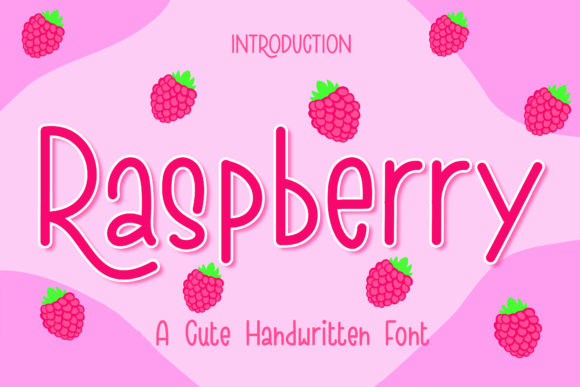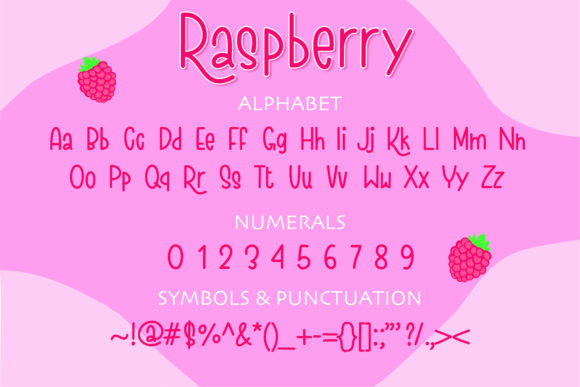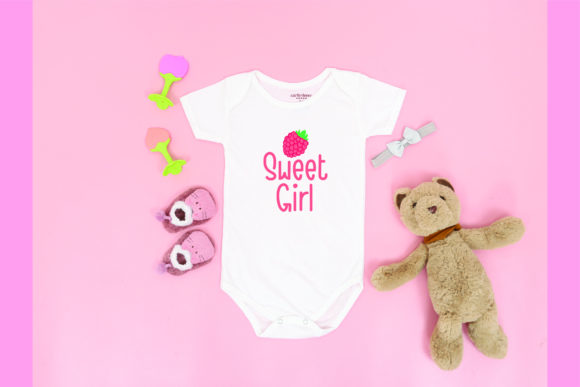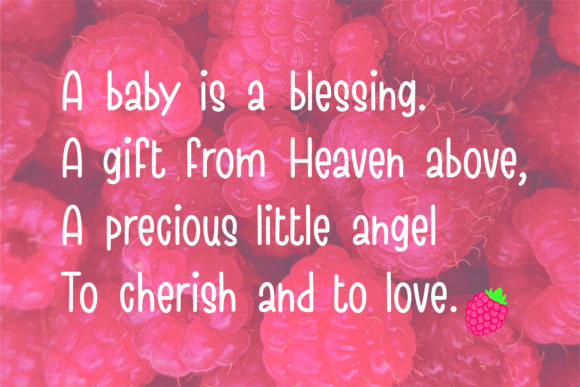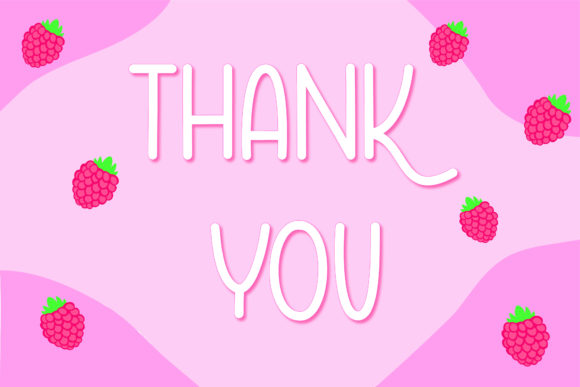
Raspberry Font
About Raspberry Font
Raspberry is a cute and simple lettered handwritten font that can be used for all chalkboard quotes or teaching material! Its authentic look will add a personal and realistic feel to your designs.